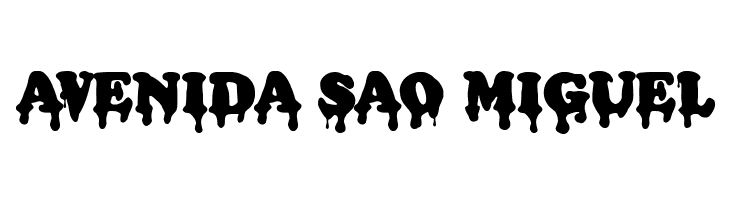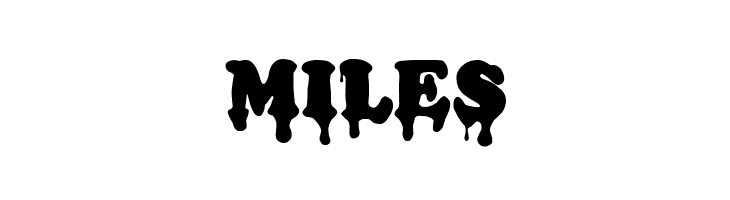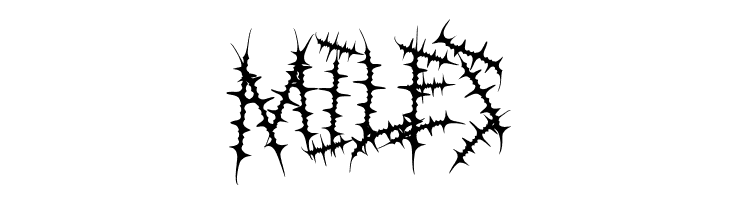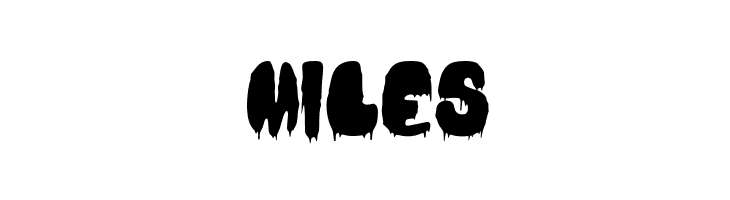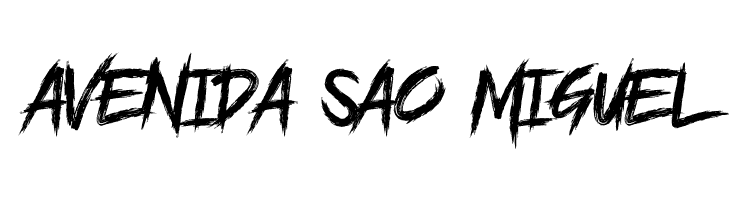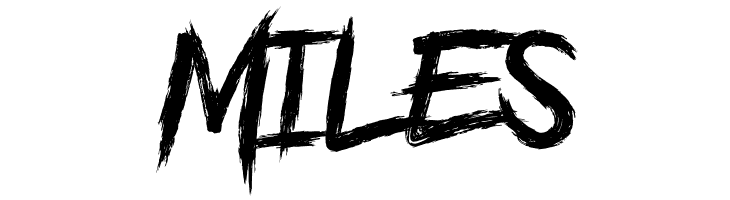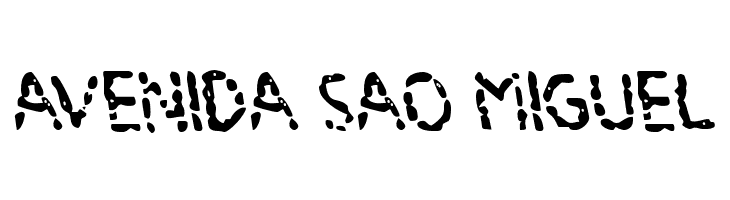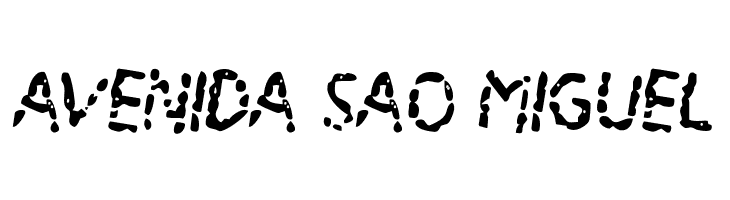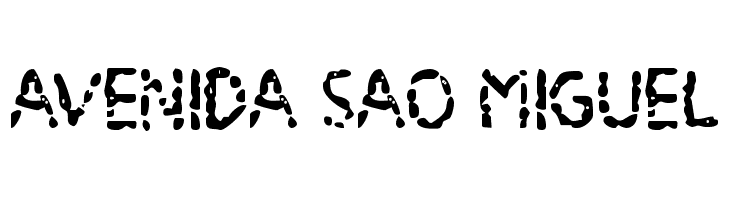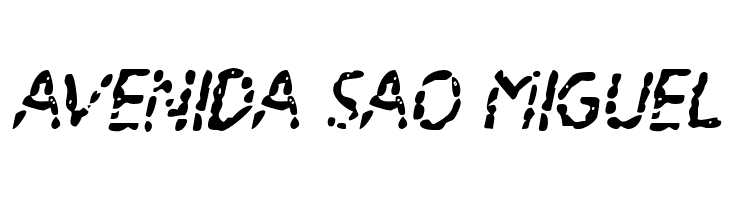
• Blood Drenched Rotalic
A bold, chaotic font with a dripping, splattered appearance, perfect for horror themes.
• Blood Drenched Rotated
A bold, dripping font with a horror-themed, liquid-like appearance.
• Blood Drenched Rotated 2
A dramatic, splatter-style font with irregular, fluid characters.
• Blood Drenched Semi-Italic
A blood-splattered, semi-italic font with a dramatic, horror-themed style.
• Blood Drenched Semi-Leftalic
A bold, dripping font with a semi-italic slant, perfect for horror themes.
• Blood Drenched Staggered
A bold, irregular font with a dripping, splattered appearance, perfect for horror themes.
• Blood Drenched Staggered Ital
A bold, splattered font with a chaotic and eerie style.
• Blood Drenched Super-Italic
A bold, dripping font with a fluid, blood-like appearance.
• Blood Drenched Wavy
A bold, dripping font with a wavy, fluid appearance.
• Blood Drenched Wavy Italic
A bold, wavy, and italic font with a dramatic, liquid-like appearance.
• Blood Regular
A bold, gothic-inspired font with sharp, angular edges and dramatic flair.
• Blood Scratch - Personal Use
A jagged, scratch-like font with a raw, edgy aesthetic.
• Blood Shade
An elegant script font with intricate flourishes and a flowing cursive style.
• Blood Shade_PersonalUseOnly
An elegant script font with decorative swashes and flowing cursive style.
• Blood Shadow
A bold, dripping font perfect for horror-themed designs.
• Blood Spatter
A bold, dripping horror display font with a blood-splatter effect.
• Blood Thirst
A bold, dripping font ideal for horror and spooky themes.
• BloodBoldDriped
A bold, dripping font with a spooky and dramatic style.
• BLOODIES
A bold, handwritten-style font with dynamic, slanted characters.
• BLOODSEEKER DEMO
A bold, jagged font with dynamic, brush-like strokes.